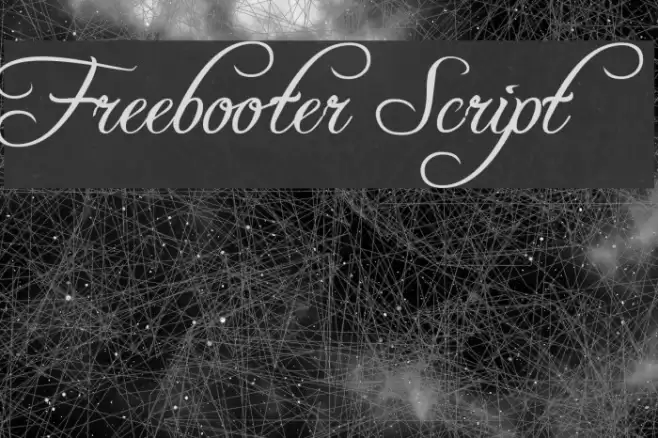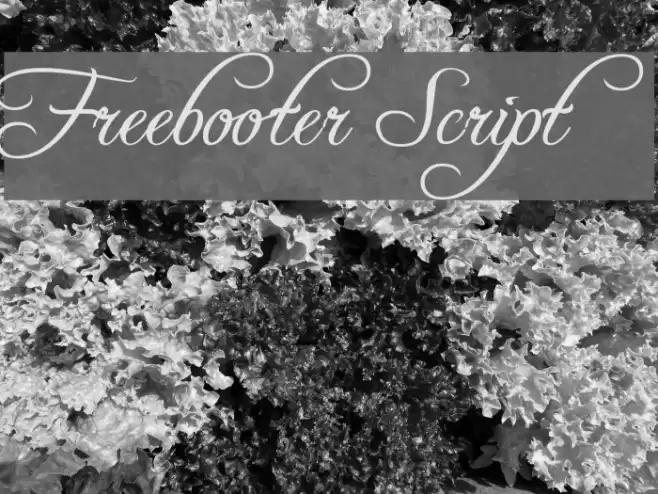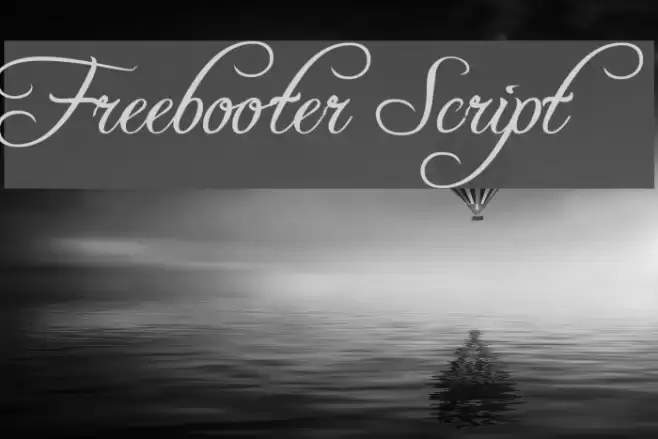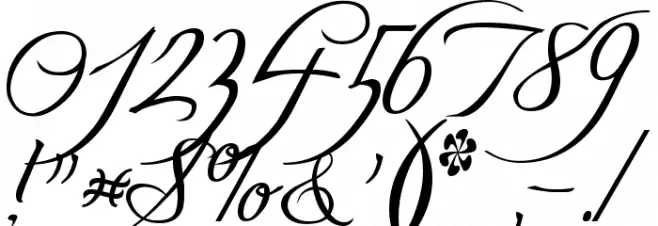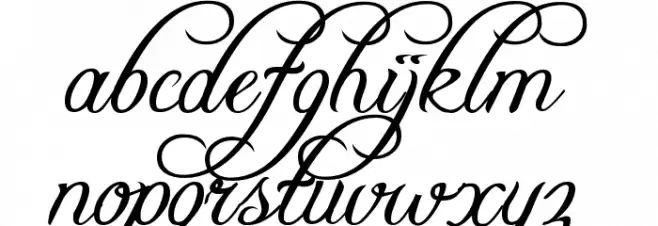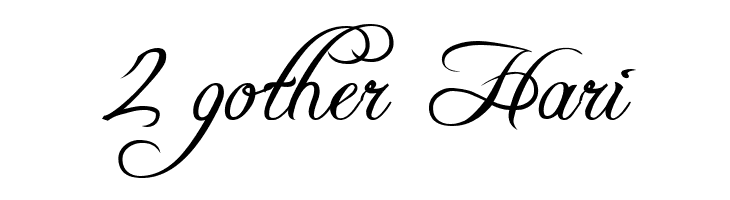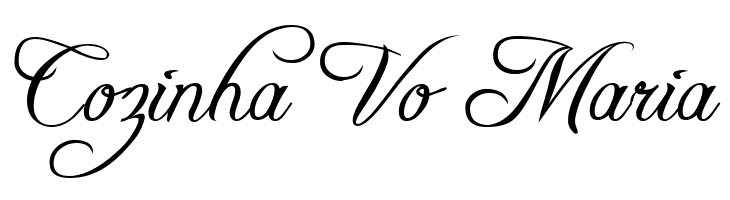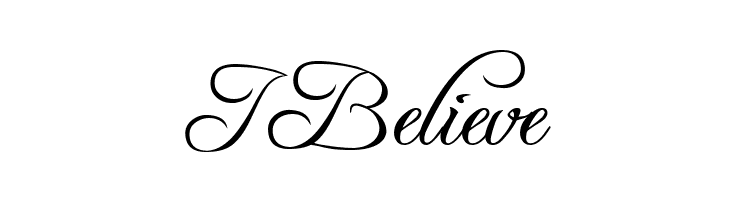
Freebooter Script Font
Freebooter Script Description
This elegant script font features flowing, interconnected characters with elaborate swashes and flourishes. The uppercase letters are particularly ornate, with exaggerated loops and curves that give a sense of movement and grace. The lowercase letters maintain a consistent style, offering a smooth transition between characters. The numbers and special characters are equally decorative, complementing the overall aesthetic. This font exudes a sense of sophistication and is ideal for projects that require a touch of elegance and formality.
An elegant script font with flowing, interconnected characters and elaborate swashes from Calligraphic fonts.
- Proposed Projects: Ideal for wedding invitations, formal event programs, elegant branding, and decorative certificates.
- Use Case: Logos, Invitations, Decorative Text